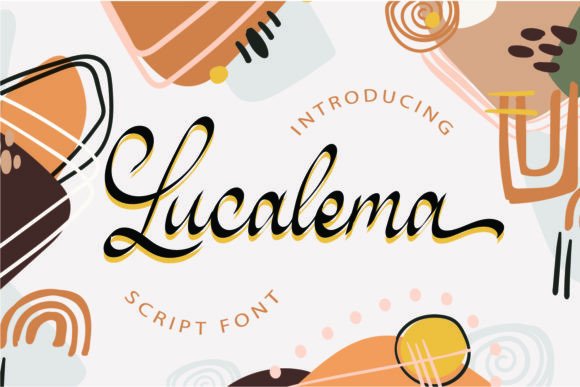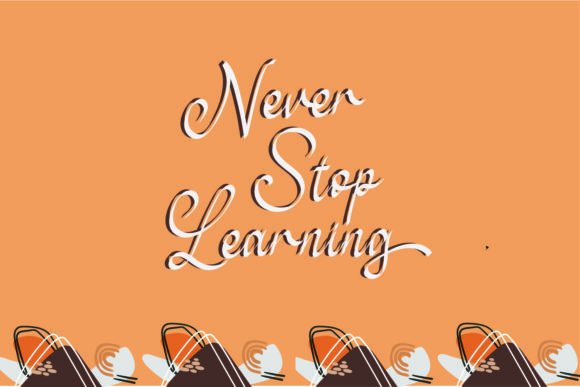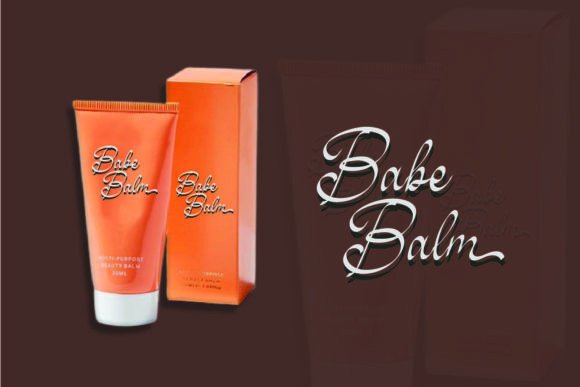
A Modern and Cool Handwritten Script
Lucalema is a modern and sleek handwritten script font designed to add boldness and charm to your designs. The font features distinct strokes and smooth curves, making it a perfect blend of elegance and contemporary style. Whether you’re working on branding, invitations, or digital graphics, Lucalema brings a unique, timeless touch to every project.
Its clean, sophisticated look makes it ideal for any design that needs a stylish, memorable touch.
Lucalema is highly versatile, making it suitable for a wide variety of creative uses. It’s perfect for logos, business cards, and branding materials. The font’s bold style gives your brand a modern, polished look that captures attention and leaves a lasting impression.
This font also works wonderfully for wedding invitations, greeting cards, and event signage. The elegant yet cool design adds a fresh vibe to any special occasion.
Lucalema is great for social media graphics, website headers, and blog designs. Its modern script style helps your content stand out and grabs attention in the digital space.
Despite its artistic design, Lucalema remains legible at any size. The letter spacing is well-balanced, ensuring that your text remains clear and readable, whether you use it for bold titles or smaller captions.
Many designers pair Lucalema with a clean sans-serif font to create a dynamic contrast. Use Lucalema for main headlines or logos and the sans-serif font for the body text. This combination creates a visually appealing, easy-to-read design.
To enhance Lucalema’s modern charm, use bold backgrounds and minimalist layouts. Neutral tones such as ivory, beige, and gray help the font’s distinctive strokes stand out without overwhelming the design.
When working on wedding materials or luxury branding, consider incorporating subtle geometric or linear elements that complement the font’s bold nature. For social media and marketing materials, keep the layout simple and let Lucalema take the spotlight.
Think about the mood you want to create. Lucalema is perfect for designs that should feel bold, sophisticated, and contemporary.
Lucalema is more than just a modern handwritten font. It’s a tool that transforms your designs, adding elegance and personality to your projects. With its sleek, bold appearance, Lucalema is perfect for any project that needs to stand out.
Adding Lucalema to your font collection ensures you always have a stylish and versatile option for creative work. Whether you’re designing logos, invitations, or social media content, this font adapts easily to any project.